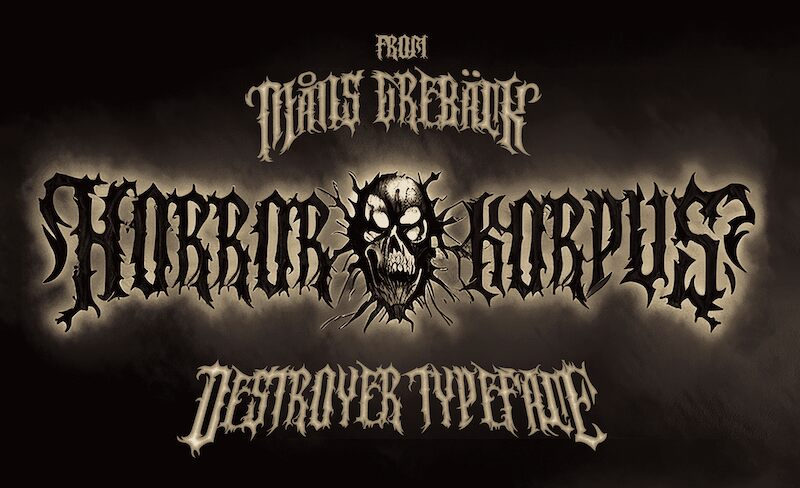
Horror Korpus, designed by Mans Greback, is a display font that embodies the essence of fear and darkness. With its semi-light weight, it strikes the perfect balance between subtlety and intensity. This font is ideal for projects that require a touch of horror and rebellion. It is the go-to choice for heavy metal band logos, adding a fiery and ominous dimension to their visual identity.
Horror Korpus also lends itself perfectly to creating spine-chilling movie posters for horror films, captivating audiences with its eerie aesthetic. Step into the realm of fright and let Horror Korpus unleash your creativity in the most bone-chilling way possible.
Write % after any word to make it into a symmetric logo.
Example: Monogram%
Use ( ) { } [ ] < > around any word to give it wings.
Example:
Use ≠ ~ to make demonic symbols like devils and skulls.
Example: scarymovie